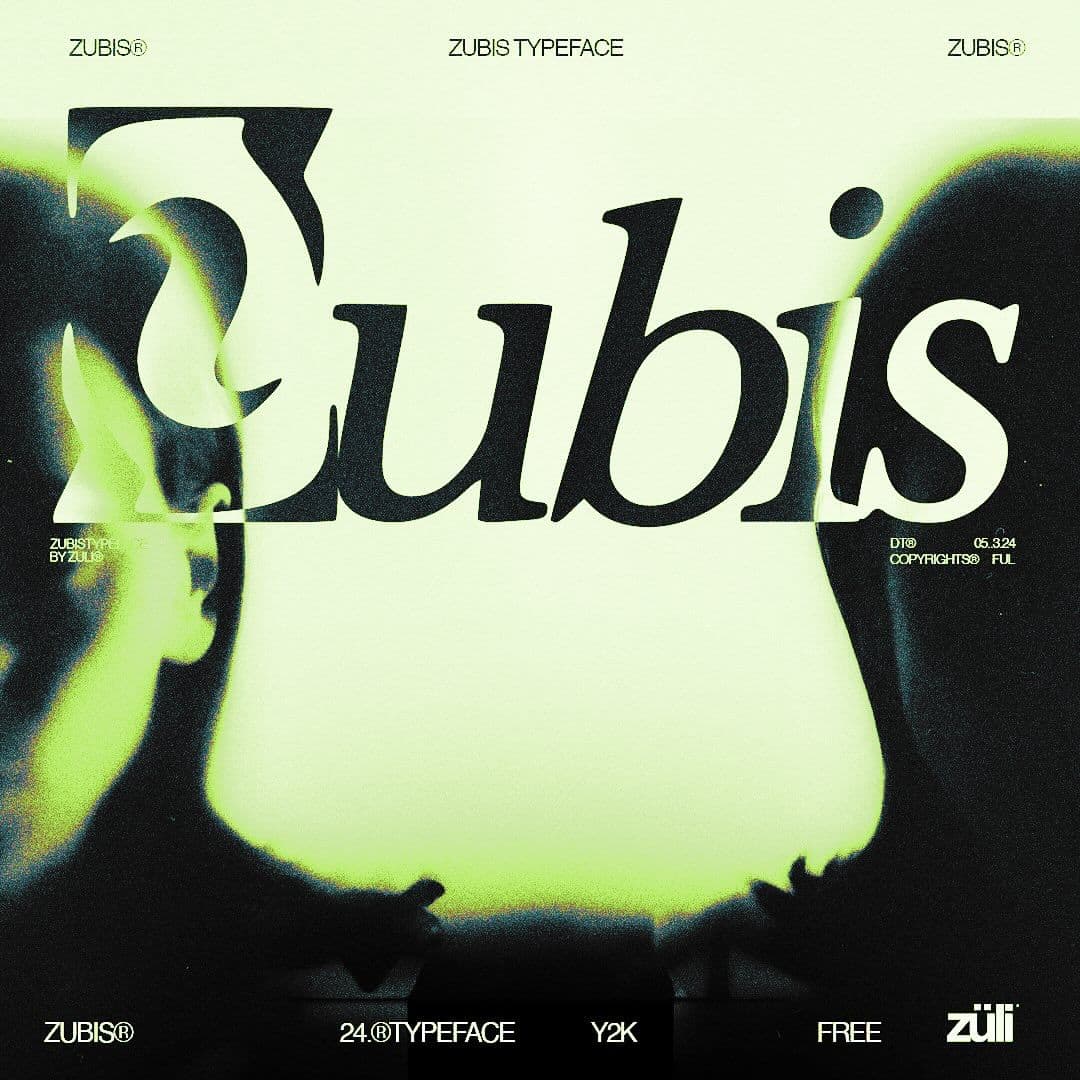
<p><strong>Font Features:</strong></p> <ul> <li>No Limitations on Commercial Use</li> <li>No Limitations on Installs Number</li> <li>Typeface is in Y2k Style</li> <li>Capital Letters With a Curve Shape</li> <li>Typeface is Ready for Use just to put in your design no need to edit</li> <li>Typeface will Fit with any design and will improve design level</li> </ul>